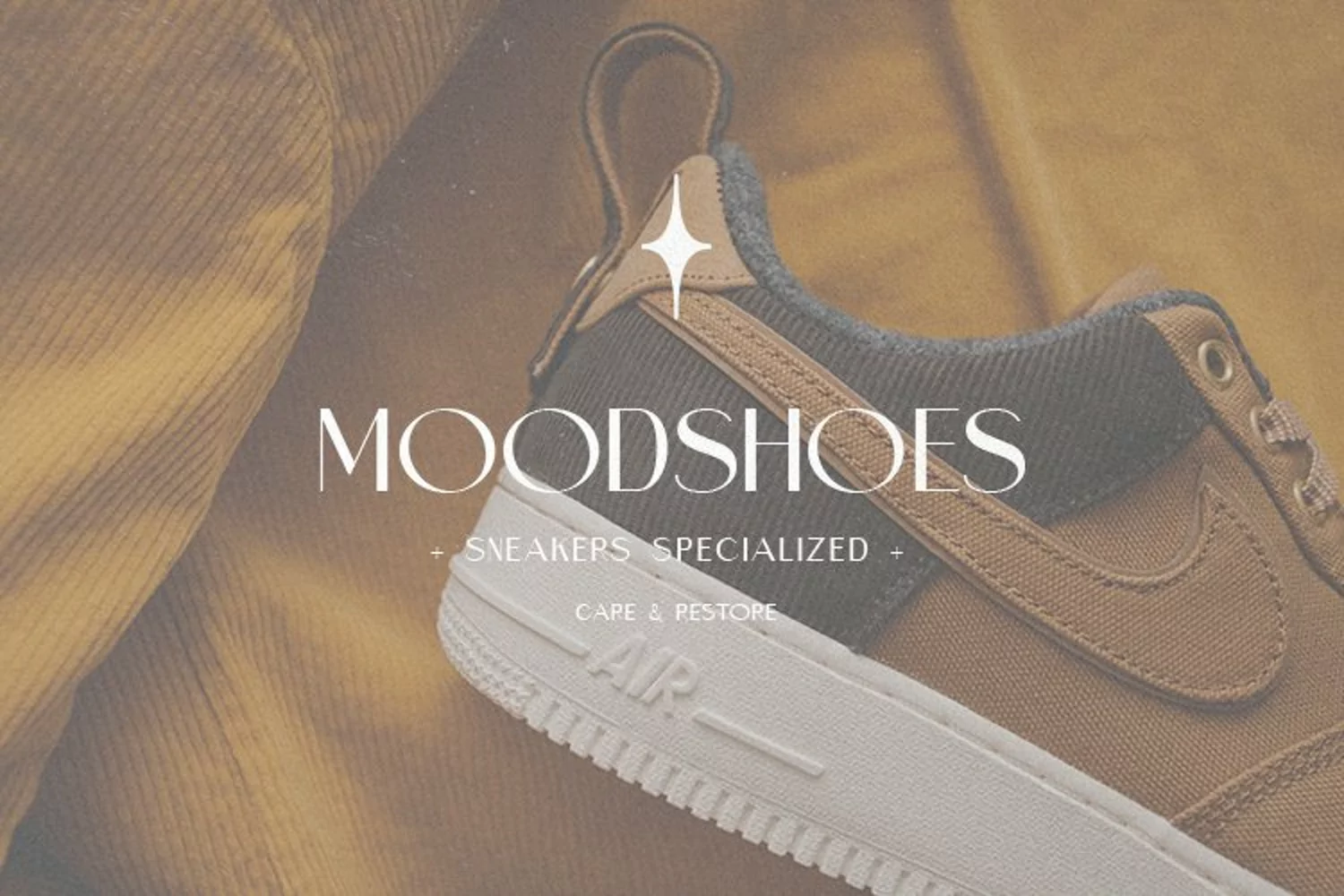
Morning Poem is a minimalist sans serif display font that inspired from modern achitecture design.
If pair with signature style or modern caligraphy font, Morning Poem is just perfect font for your simple but classy design, such as wedding invitation,
social media posts, product designs, quotes, etc.